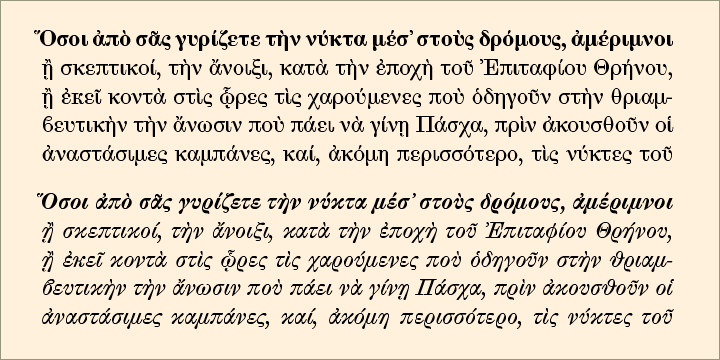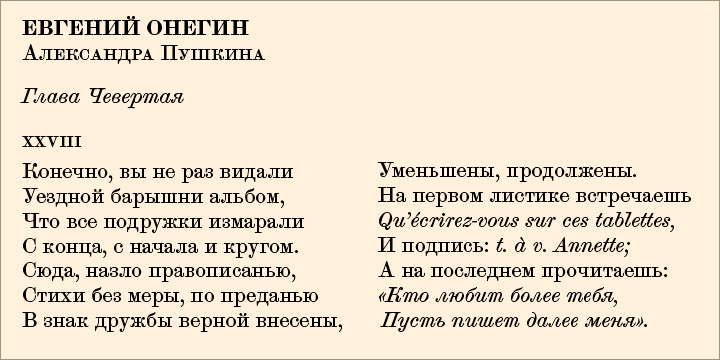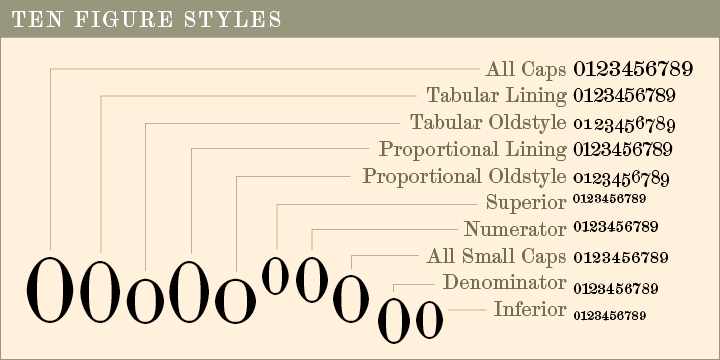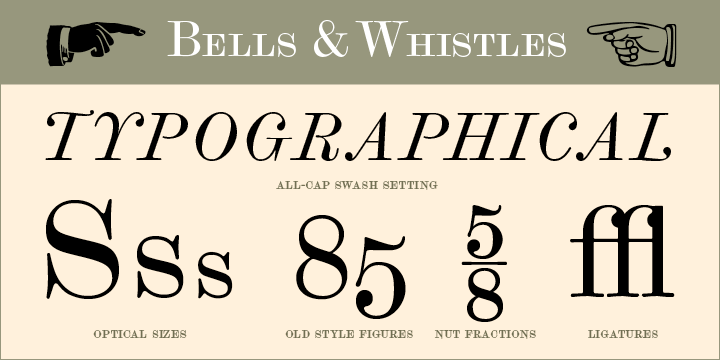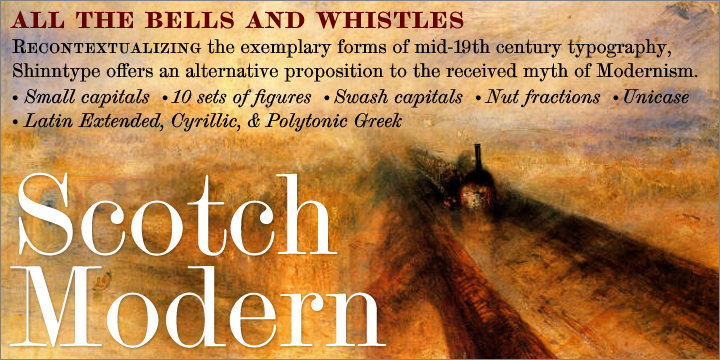
Scotch Modern Family (9 fonts)
This beautiful genre of type, so popular in books, magazines and advertisements during the Victorian era and much of the 20th century, was derided by advocates of both the Arts & Crafts movement and 20th century modernists, and has never been properly adapted to hot metal, phototype, or digital media -- until now. Now the full range of typographic expression is possible in this style. The OpenType fonts support Western and CE encodings, Cyrillic (with Bulgarian alternates) and Polytonic Greek. There are many special features, including small caps, unicase, italic swash capitals, ten sets of figures per font, and both slashed and nut (vertical) fractions.
Together with Figgins Sans, comprises The ModernSuite of matched fonts.
Old-style Digits, Ligatures, Discretionary Ligatures, Small Caps, Historical Forms, Alternates, Contextual Alternates, Fractions, Swash, Superscript, Subscript